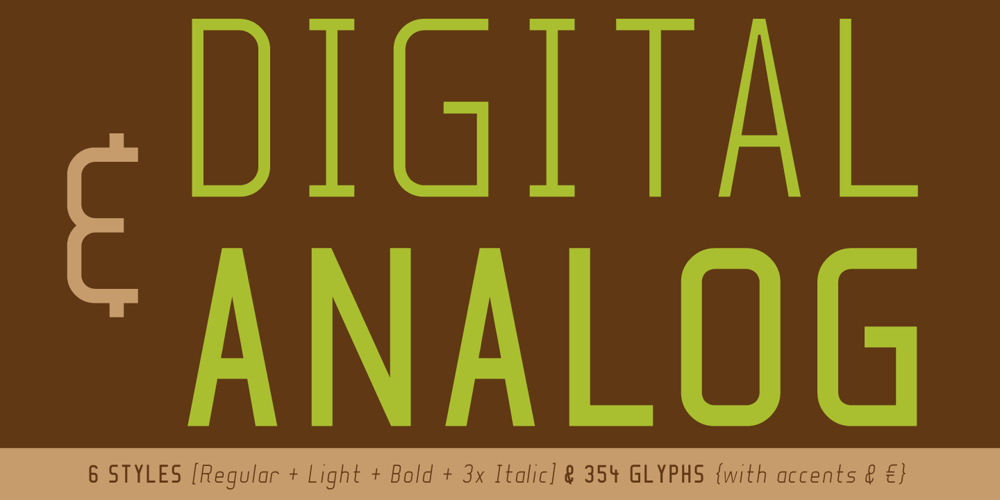
Soul Lotion Font Family was designed by Manuel Viergutz and published by TypoGraphicDesign. Soul Lotion contains 6 styles and family package options. CONCEPT/CHARACTERISTICS The typeface “Soul Lotion” is a sans serif font for display sizes. Constructed, clear and simply with monoline character. The round and unadorned look is modern & simple. APPLICATION AREA The modern, clear and simply sans serif font “Soul lotion” would be happy as a display typeface in headline size on the following areas and there simply feel good: Logos/Wordmarks, party flyer, album covers, CD covers, Poster design, video game design, and much more as display typeface for print and digital magazines, books and websites. TECHNICAL SPECIFICATIONS Headline Font | Display Font | Sans Serif Font “Soul Lotion” OpenType Font (Mac + Win) with 6 styles (regular, bold, light + 3x italic) & 354 glyphs. Incl. accents, alternative letters, ligatures & €. Desktop Font (.otf) + Web Font (.svg, .eot, .woff) KONZEPT/BESONDERHEITEN Die Schrift »Soul Lotion« ist ein serifenloser Font für Headlinegrößen. Konstruiert, klar und einfach mit gleichbleibender Strichstärke. Die runden und schnörkellosen Formen wirken modern & schlicht. EINSATZGEBIETE Die moderne, klare und einfache Sans Serif Schrift »Soul Lotion«, würde sich als Auszeichnungsschrift in Headlinegröße über folgende Einsatzgebiete sehr freuen und sich dort schlicht wohlfühlen: Logos/Wortmarken, Flyer für fast jede Party, PlattenCover, CD-Cover, PlakatDesign, Videospiel Design, als Headlineschrift für print und digitale Magazine, Bücher und Webseiten u.v.m. TECHNISCHE INFORMATIONEN Headline Font | Display Font | Sans Serif Font »Soul Lotion« OpenType Font (Mac + Win) mit 6 Schriftschnitten (regular, bold, light + 3x italic) & 354 Glyphen. Inkl. diakritisches Zeichen, alternative Buchstaben, Ligaturen & €. Desktop Font (.otf) + Web Font (.svg, .eot, .woff)